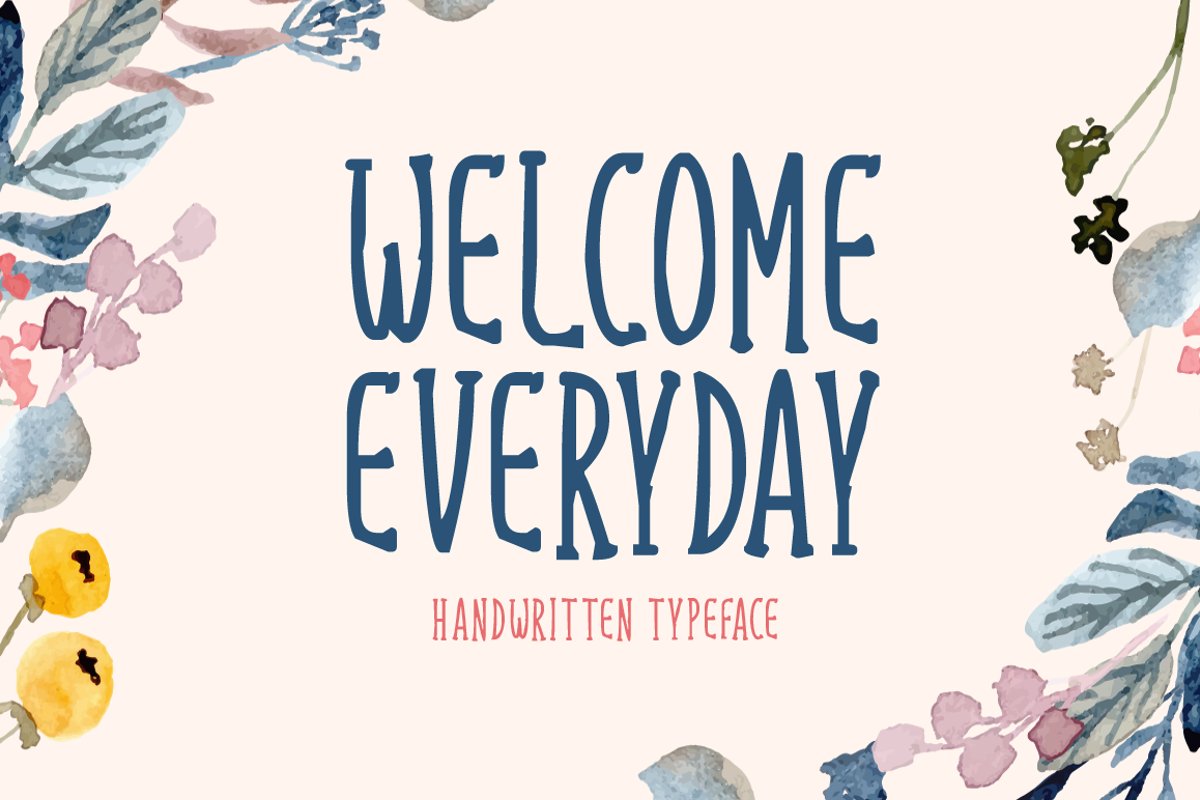
Introducing Welcome Everyday!
Welcome Everyday is a brand new handwritten font. Welcome Everyday is perfectly suited for stationery, logos, t-shirt, paper, print design, website header, photo frame, flyer, music cover, poster, image slider and much more.